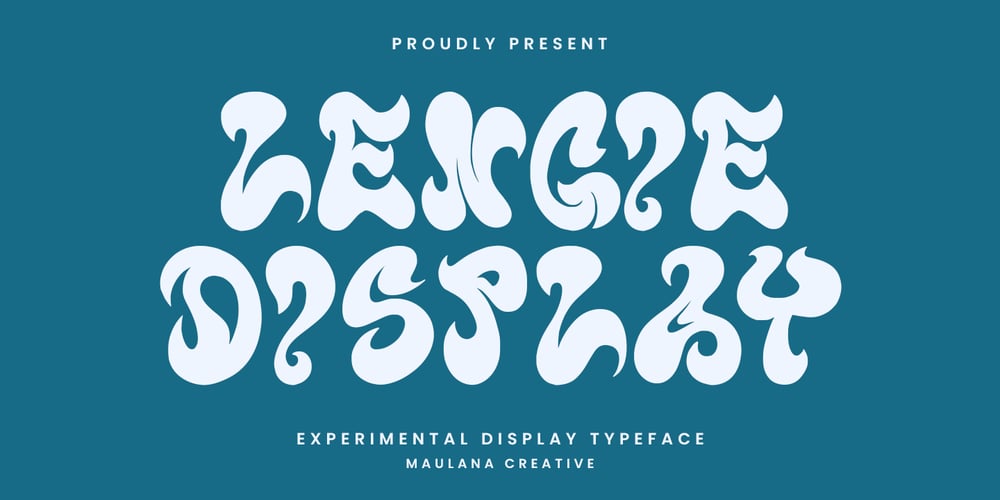
MC Lengie Font Family was designed by Gilang Maulana and published by Maulana Creative. MC Lengie contains 1 styles and family package options. Lengie experimental display font. Heavy stroke, fun character with a bit of ligatures. To give you an extra creative work. Lengie experimental display font support multilingual more than 100+ language. This font is good for logo design, Social media, Movie Titles, Books Titles, a short text even a long text letter and good for your secondary text font with script or serif. Make a stunning work with Lengie experimental display font.Cheers,Maulana Creative